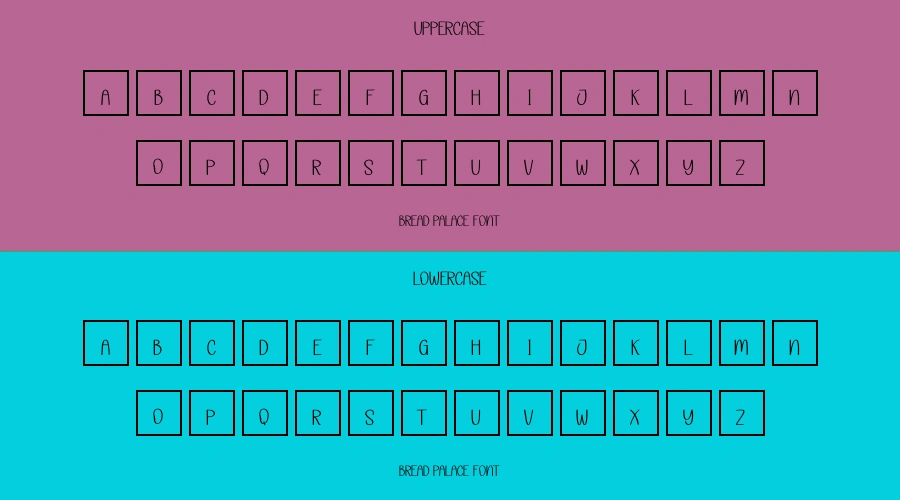
About Bread Palace Font
Designed with precision, Bread Palace Font merges fluid motion with visual comfort in every character. This versatility makes it particularly effective for wayfinding systems, where functionality and technical excellence directly impact communication quality. Each letterform demonstrates meticulous craftsmanship.
Technical excellence shines through elements like elegant proportions and word-end alternates, enhancing typographic versatility. In traditional announcements settings, Bread Palace Font proves its worth through superior numerical alignment. The thoughtful execution of terminal style and design lineage ensures professional results.